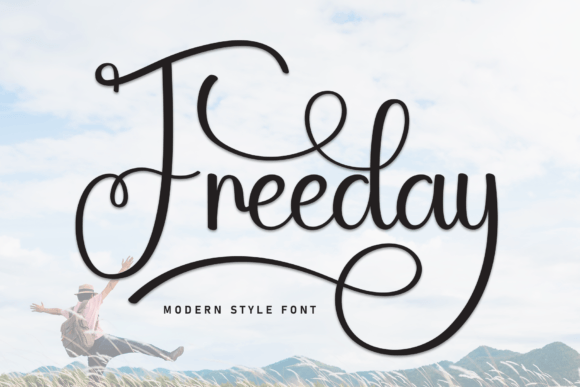
Introducing Freeday Font: The Sweet and Friendly Handwritten Font
Are you looking for a font that can add a touch of warmth and personality to your designs? Look no further than Freeday Font, a sweet and friendly handwritten font that’s perfect for creating wedding invitations, cards, and other designs that require a fun and playful touch.
What is Freeday Font?
Freeday Font is a beautiful, handcrafted font that’s designed to bring a sense of joy and friendliness to your designs. With its smooth, flowing lines and playful curves, this font is sure to capture the attention of your audience and leave a lasting impression.
Freeday Font is a versatile font that’s suitable for a wide range of design projects, from wedding invitations and cards to social media graphics, posters, and more. Its unique and charming style makes it an excellent choice for designers who want to add a personal touch to their work.
Key Features of Freeday Font
- Handwritten style: Freeday Font has a beautiful, handwritten style that’s perfect for creating personal and heartfelt designs.
- Cute and fun: This font is designed to be fun and playful, making it ideal for designs that require a lighthearted touch.
- Sweet and friendly: Freeday Font has a warm and welcoming feel that’s sure to make your designs feel more approachable and engaging.
- Versatile: This font is suitable for a wide range of design projects, from wedding invitations to social media graphics.
Ideas for Using Freeday Font
Freeday Font is a versatile font that can be used in a variety of design projects. Here are some ideas to get you started:
- Wedding invitations: Freeday Font is perfect for creating beautiful and personalized wedding invitations that will make your guests feel special.
- Cards and stationery: This font is great for creating fun and playful cards and stationery that will add a personal touch to your correspondence.
- Social media graphics: Freeday Font can be used to create engaging and eye-catching social media graphics that will help you stand out from the crowd.
- Posters and flyers: This font is suitable for creating posters and flyers that require a fun and playful touch.
Benefits of Using Freeday Font
Freeday Font offers a range of benefits that make it an excellent choice for designers. Here are some of the advantages of using this font:
- Unique style: Freeday Font has a unique and charming style that’s sure to make your designs stand out from the crowd.
- Easy to read: This font is designed to be easy to read, making it perfect for designs that require a clear and concise message.
- Customizable: Freeday Font can be customized to fit your design needs, allowing you to create a unique and personalized look.
- Time-saving: This font is a time-saving solution for designers who want to create beautiful and engaging designs without spending hours on typography.
Tips and Tricks for Using Freeday Font
Here are some tips and tricks for using Freeday Font in your designs:
- Pair with other fonts: Freeday Font can be paired with other fonts to create a unique and interesting look.
- Experiment with colors: This font looks great in a variety of colors, so don’t be afraid to experiment and find the perfect hue for your design.
- Use it sparingly: Freeday Font is a bold and playful font, so use it sparingly to avoid overwhelming your design.
- Make it your own: Customize Freeday Font to fit your design needs and make it your own.
Freeday Font is a sweet and friendly handwritten font that’s perfect for adding a touch of warmth and personality to your designs. With its unique style, versatility, and ease of use, this font is an excellent choice for designers who want to create beautiful and engaging designs. Whether you’re creating wedding invitations, cards, or social media graphics, Freeday Font is sure to make your designs stand out from the crowd.